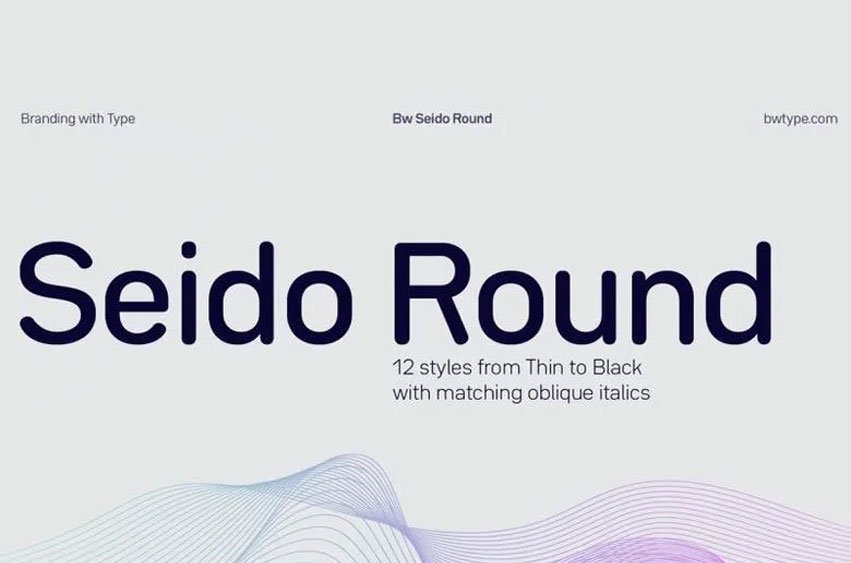
Seido Round Font
Seido Round Font is set of professional fonts is just what you need to make your work more interesting and impressive. Invented by the author Bw Vivant, Helder Gradual Glenn Sans and Bw Darius; today I introduce Seido Round Typeface as another possibility!
Alberto Romanos designed this font called Bw Seido Round for semi-condensed typefaces with the rounded corners to get a combination of geometric precision and typographical sophistication. This font is equipped with twelve styles (6 uprights and six obliques that match), every one of them supporting each European Latin language.